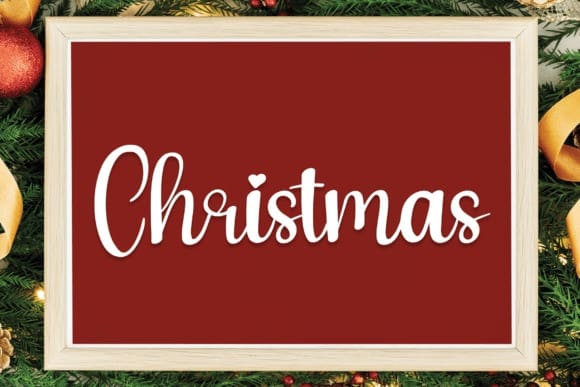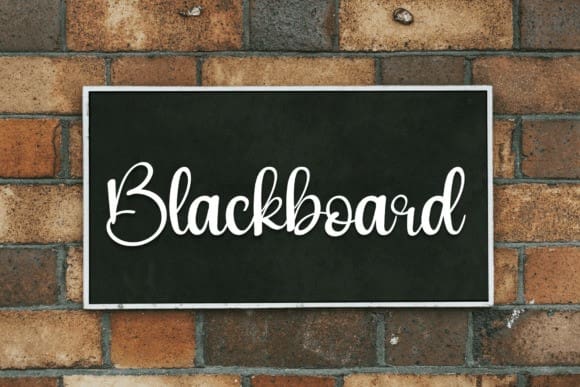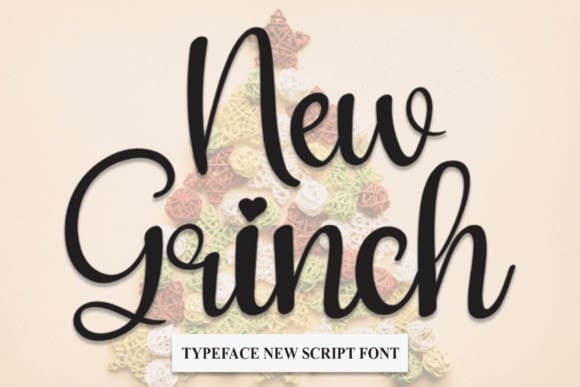
New Grinch Font
New Grinch Font, this latest style font is perfect for wall displays, wedding invitations, social media post logos, advertisements, product packaging, product design, labels, photography, watermarks, invitations, stationery, and any project that requires a taste for handwriting.